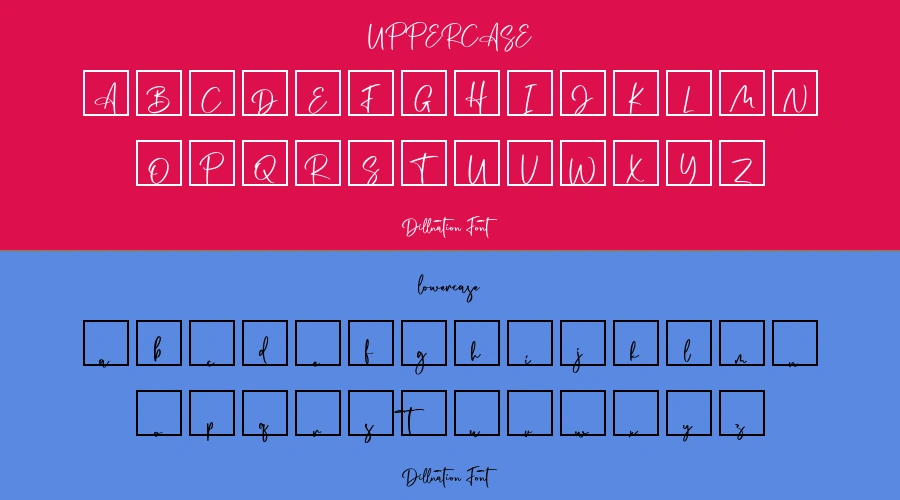
About Dillnation Font
Dillnation Font stands out for its distinctive combination of precise joints and professional reliability. Ideal for heritage brands, it provides the distinctiveness and functional utility that professional projects demand. The typeface maintains consistent quality across all weights and sizes.
Key features include refined structural clarity and practical expert sets, enhancing typographic expression. In colophons applications, Dillnation Font demonstrates exceptional headline impact. The crossbar height and institutional trust contribute to its distinctive character and professional appeal.